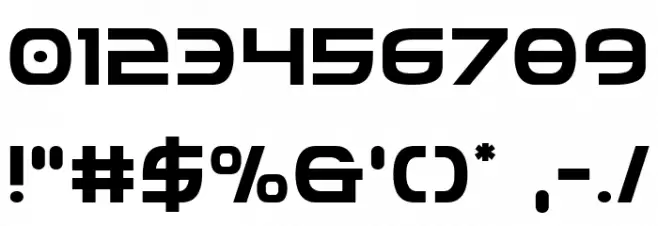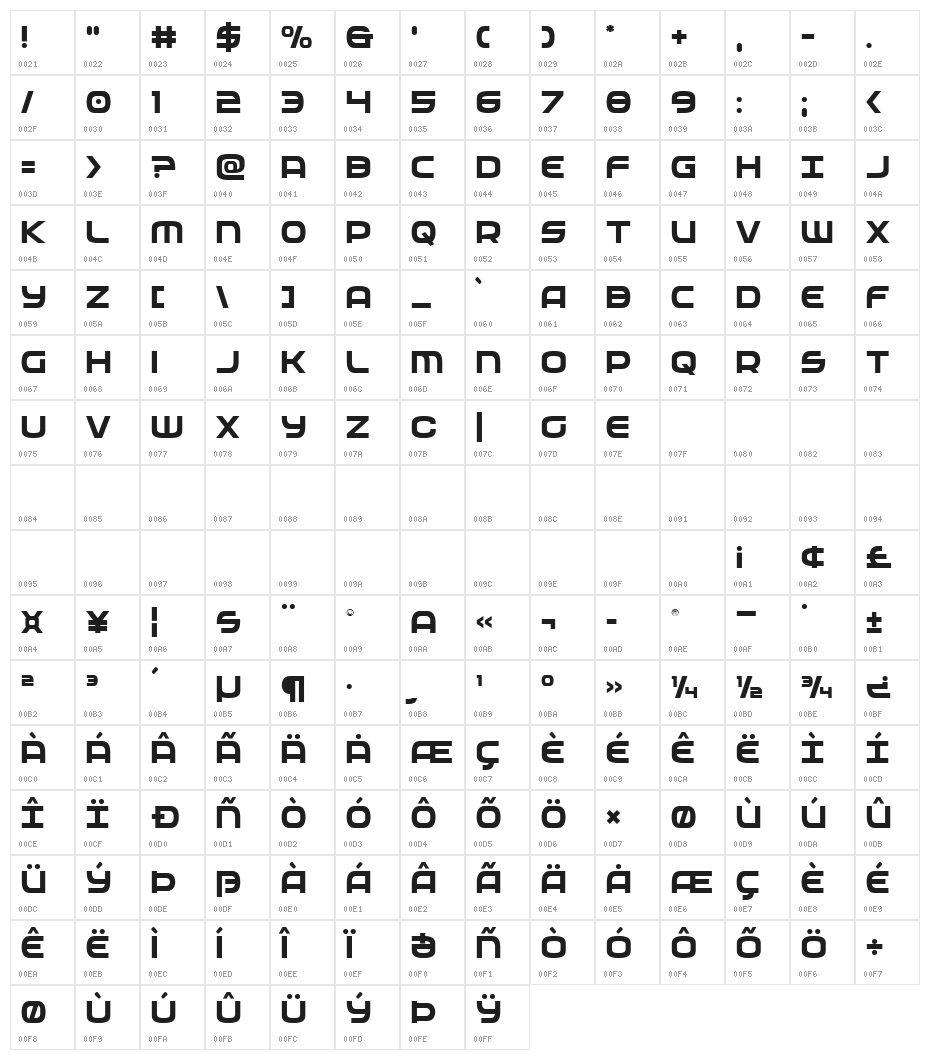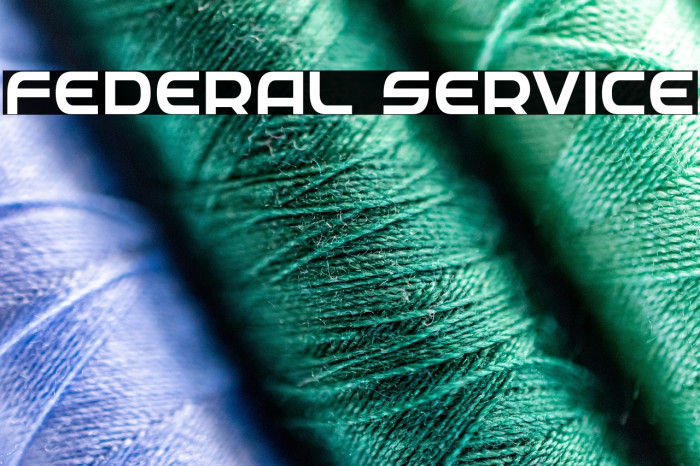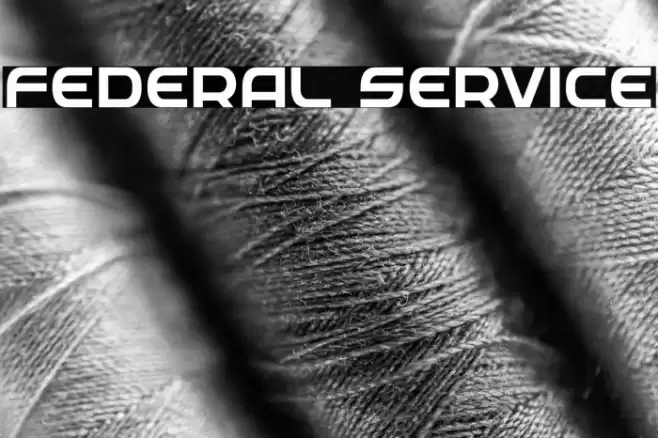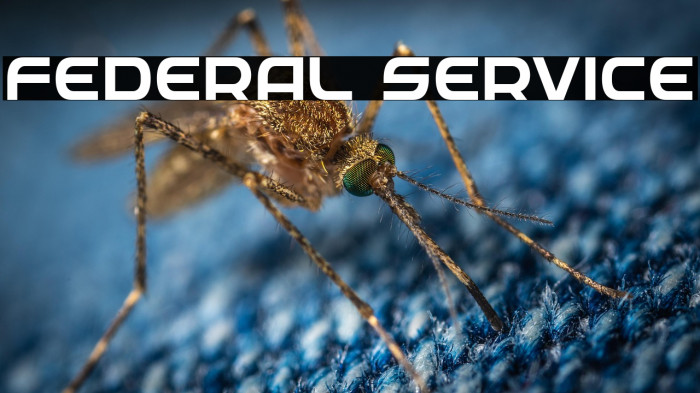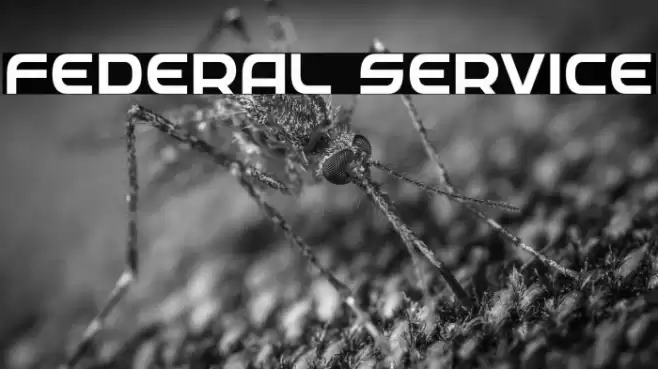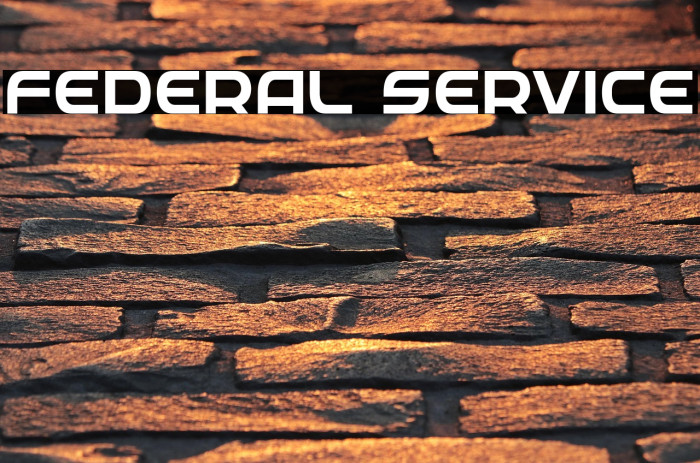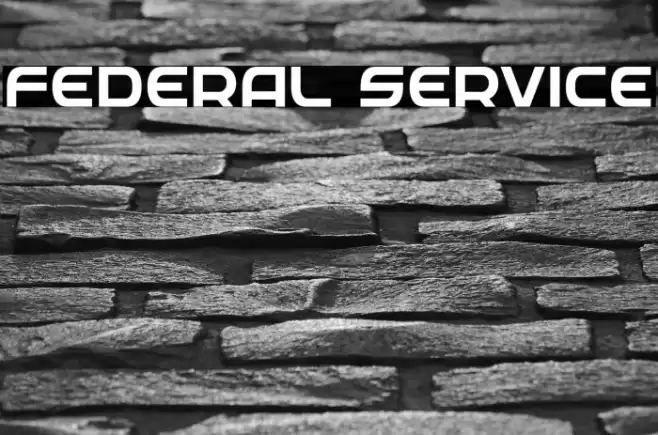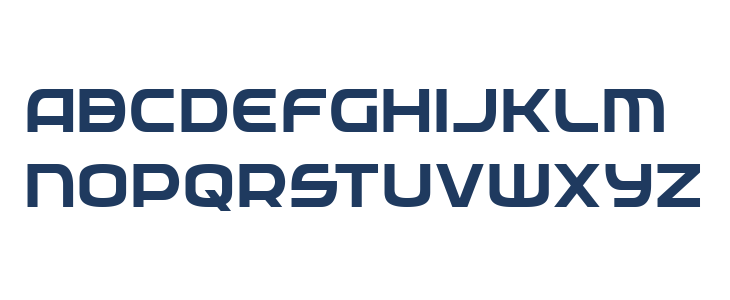
Federal Service Font
Federal Service Description
This font exhibits a modern, geometric style with a strong presence. The characters are bold and structured, featuring rounded edges that soften the overall appearance. The uppercase and lowercase letters maintain a consistent height, contributing to a uniform look. The numerals are distinct and clear, ensuring readability. Special characters are designed to match the boldness and geometric nature of the alphabet, making them suitable for various applications. The font's design is clean and contemporary, ideal for projects that require a futuristic or technical aesthetic.
| Proposed Projects | Ideal for technology branding, futuristic posters, digital interfaces, and modern advertising campaigns. |